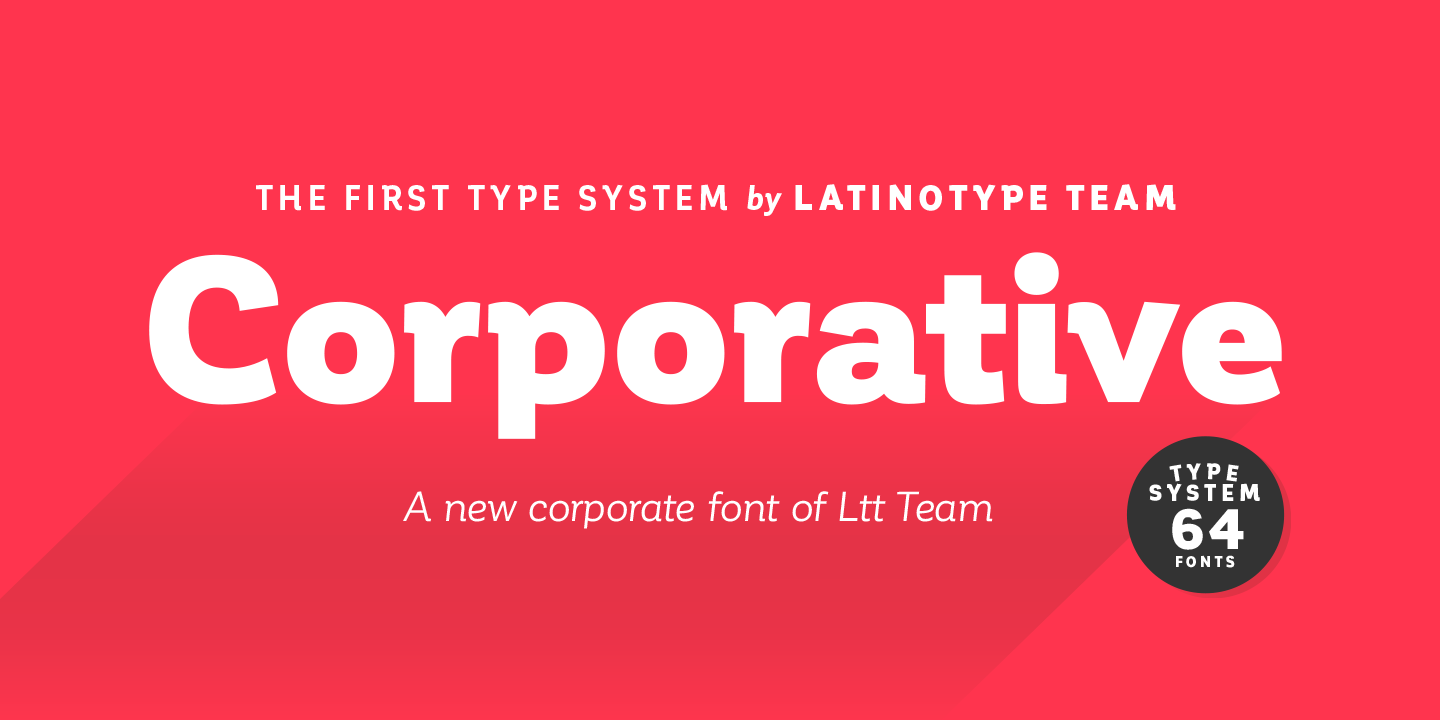
The Corporative Font is perfectly designed for numerous professional and business applications including corporate identity systems, executive presentations, annual reports, business card designs, corporate websites, financial documentation, professional letterheads, board meeting materials, investor relations communications, and enterprise-level branding projects. Its authoritative character makes it particularly effective for Fortune 500 companies, financial institutions, consulting firms, and established enterprises seeking to convey corporate excellence, institutional authority, and professional credibility in their visual communications and business presentations.
What makes the Corporative Font incredibly exciting is its masterful embodiment of corporate sophistication and executive presence combined with contemporary business design standards. This distinguished typeface captures the essence of corporate leadership and institutional reliability while incorporating modern typographic principles that ensure optimal performance across today's diverse business landscape. The font's commanding character emerges from its confident letterforms, executive proportions, and carefully engineered details that create a sense of corporate authority and professional trustworthiness, making it perfect for organizations seeking to establish market leadership and appeal to executive-level, decision-making audiences.
The Corporative Font family encompasses multiple weights and styles designed to provide comprehensive corporate branding solutions. The collection typically includes thin, light, regular, medium, bold, and black weights, with many versions offering professional italic variants that enhance the font's executive appeal and corporate character. Some editions may include condensed versions, executive alternates, and institutional elements that provide additional design options for creating unique typographic treatments and enterprise-focused brand applications.
Corporate designers and executive communication specialists consistently choose the Corporative Font Free Download for its exceptional authority and professional impact. The font features meticulously engineered spacing and kerning that ensures optimal readability across various corporate applications, from detailed financial reports to large-scale corporate signage. Its robust construction maintains clarity and professionalism across different sizes and business contexts, while the comprehensive character set includes uppercase and lowercase letters, numerals, punctuation marks, and special symbols, along with extensive language support for international corporations and global business communications.
The Corporative Font represents the pinnacle of corporate typography, combining executive heritage with contemporary functionality. Its professional aesthetic commands respect while maintaining the versatility required for diverse business applications. The font's remarkable adaptability allows it to work effectively in both traditional corporate contexts and modern enterprise branding, ensuring consistent excellence across corporate websites, executive materials, business documentation, and professional communications.
Establish corporate authority and executive presence with the professional excellence and institutional credibility of the Corporative Font, the ultimate choice for corporate typography excellence.